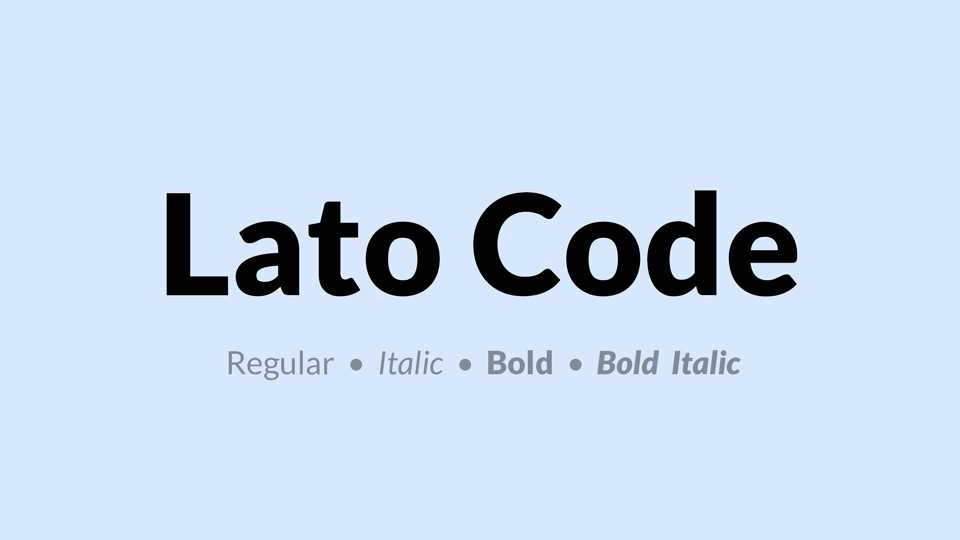
Download Lato Code typeface, a derivation of Lato font family in two weights and Italics. Lato Code alters some of the glyphs in order to make the font suitable for displaying source code, using a beautiful, easy-to-read and space-optimizing proportionally spaced font.